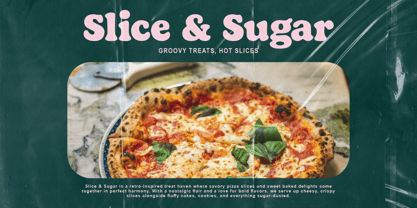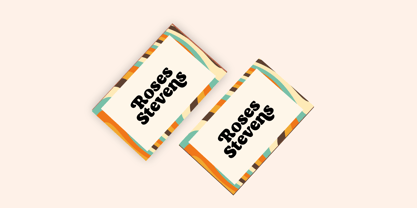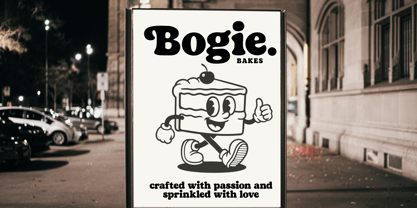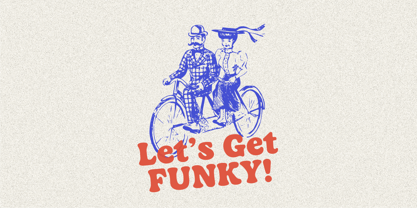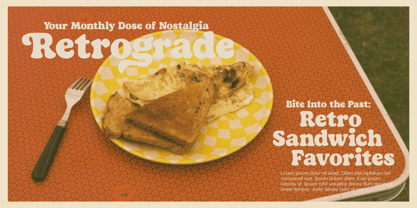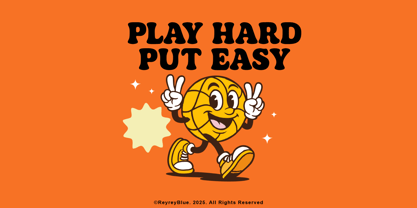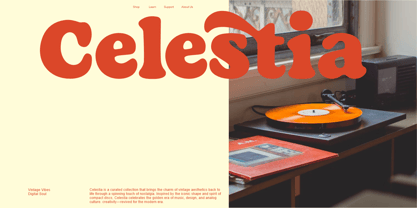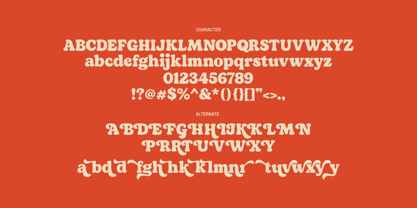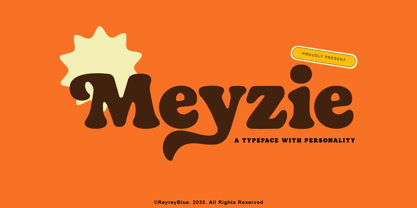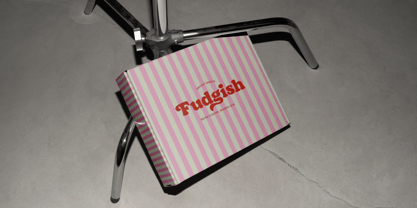
Meyzie
Introducing Meyzie, a bold retro display font that brings charm, fun, and groovy vibes into your design projects. Inspired by vintage typography from the 60s and 70s, Meyzie features chunky letterforms with whimsical curves and a bold personality, perfect for capturing attention and evoking nostalgia.
Whether you're designing for branding, packaging, posters, t-shirt graphics, or social media, Meyzie delivers a standout look with its unique blend of retro flair and modern fun. This typeface is ideal for projects that need a strong visual impact and a touch of personality.
Features:
• Uppercase & lowercase
• Punctuation & multilingual support
• Perfect for logo design, headlines, vintage packaging, and more
Give your designs a delightful twist with Meyzie, the retro typeface that’s full of character!